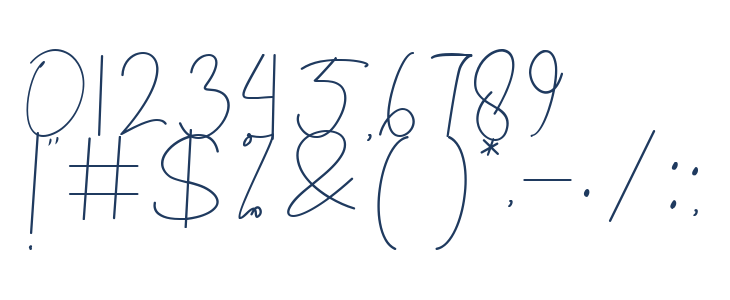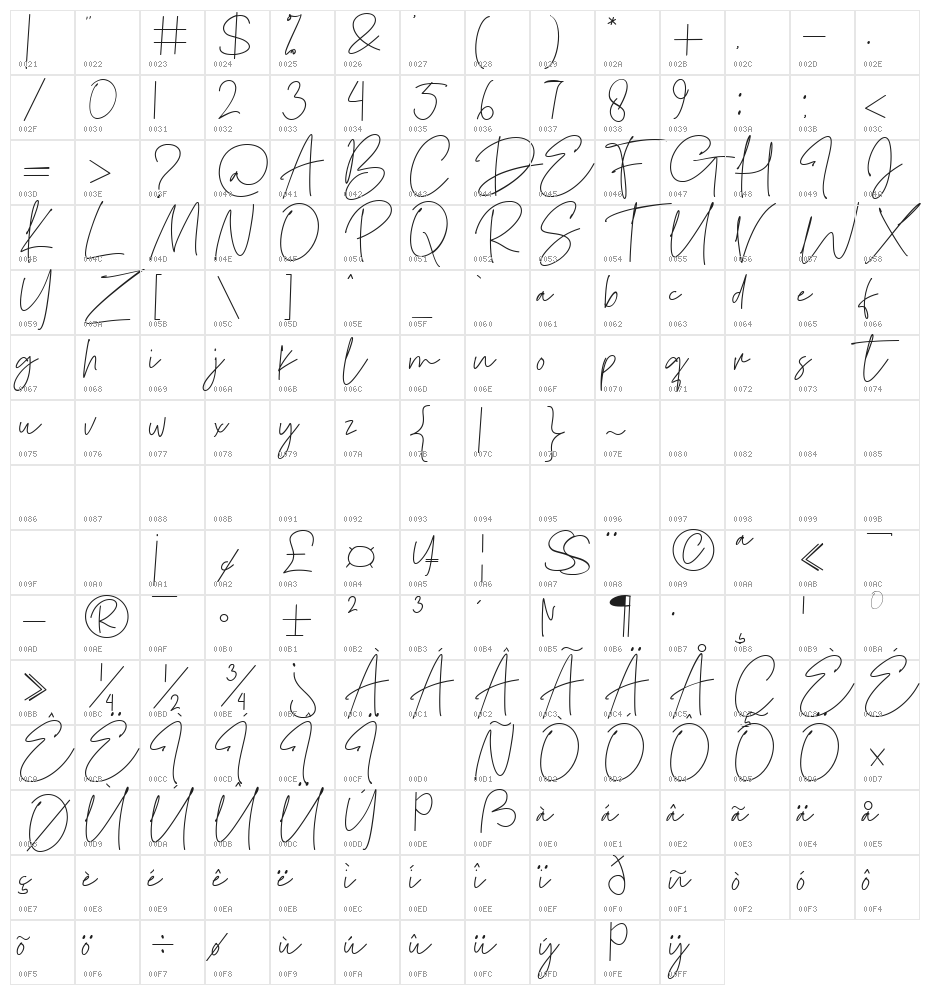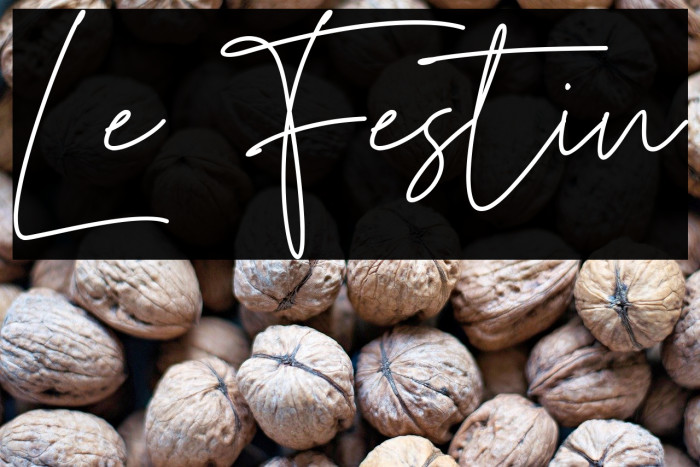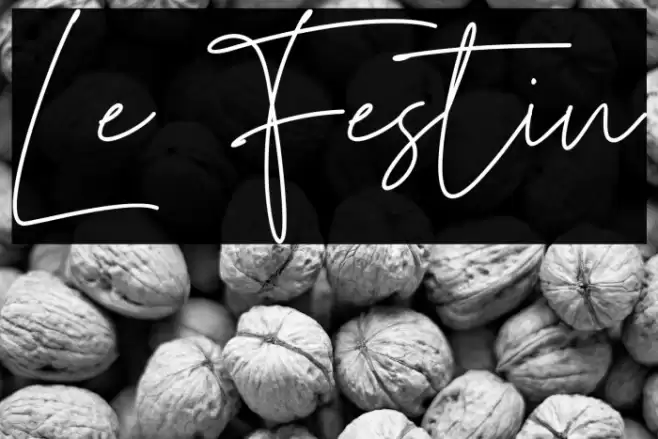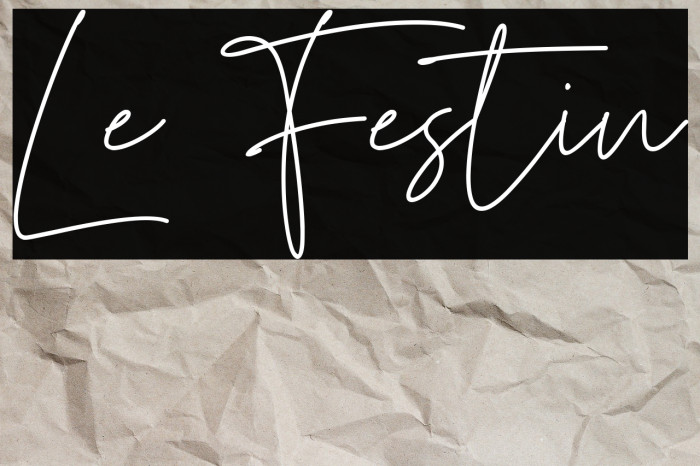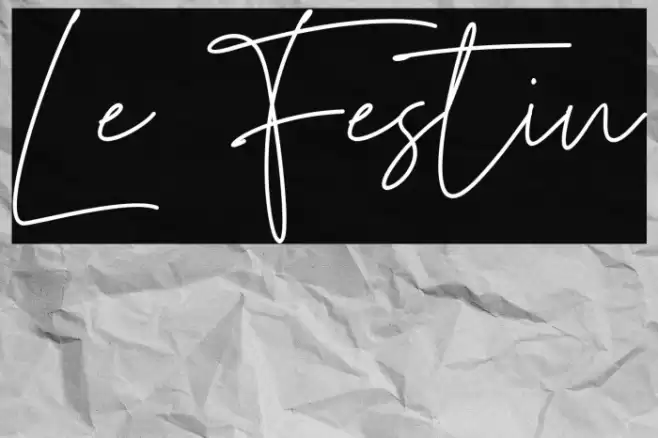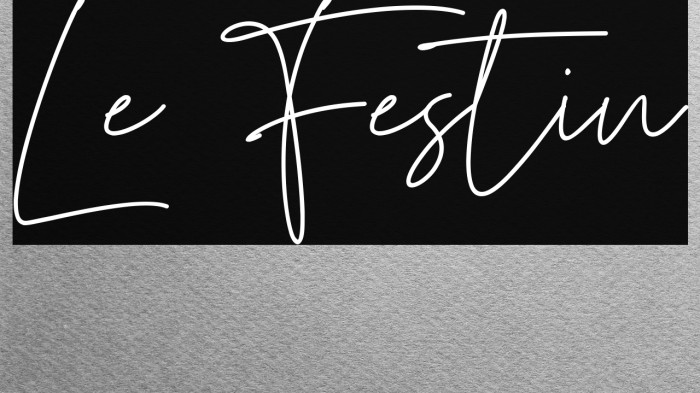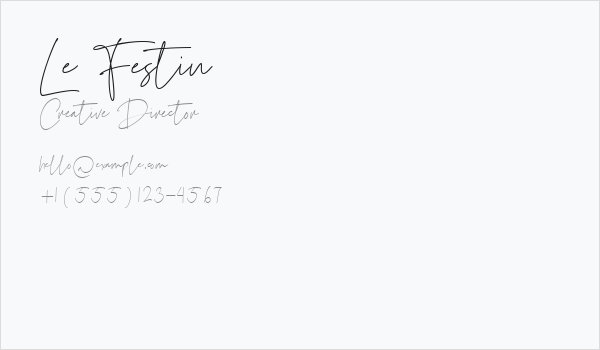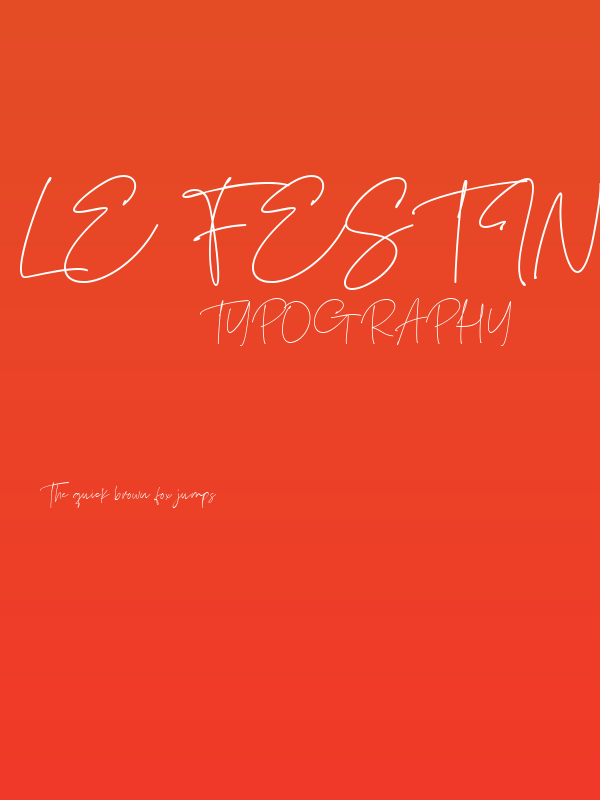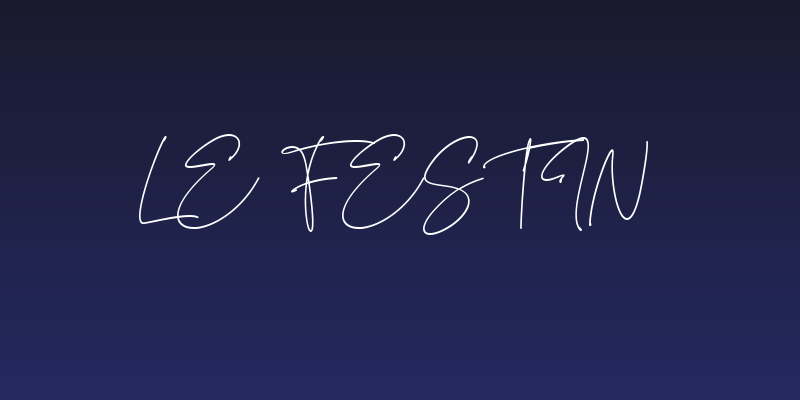
Le Festin Font
Le Festin Description
This font features a handwritten style with a casual and flowing appearance. The uppercase letters are tall and slender, with a slight slant that adds a dynamic feel. The lowercase letters are more varied in height, with some characters extending below the baseline, creating a lively and informal look. The numerals are consistent with the overall style, maintaining the same slender and slightly slanted form. Special characters are integrated seamlessly, enhancing the font's versatility. The strokes are smooth and continuous, giving it a natural and personal touch, perfect for projects that require a human element.
| Use Case | Logos, Invitations, Social Media |
| Proposed Projects | Ideal for personal branding, invitations, greeting cards, and social media graphics. |